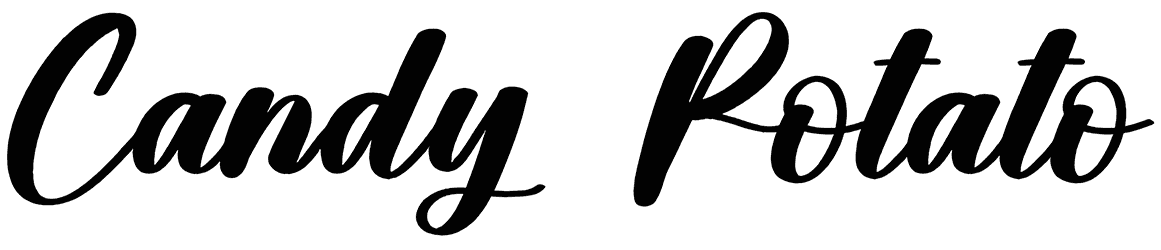
Candy Potato Font
What do you think about a natural and modern letterform for your design’s words? If you are seeking a unique one, this handwritten font would be interesting for you. You have almost full characters in this elegant and captivating script font. Use Candy Potato font for your upcoming designs, like a wedding invitation card.